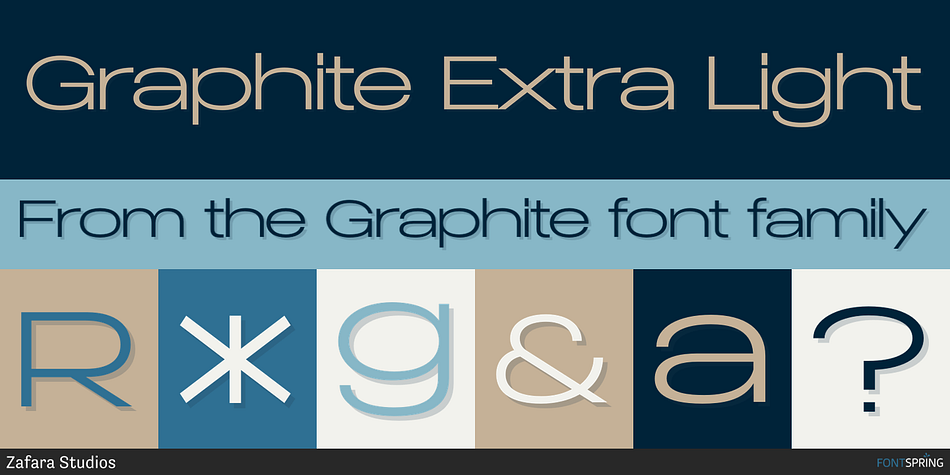
Graphite Extra Light
Graphite is a sans serif font family. This typeface has eighteen styles and was published by Zafara Studios.
Graphite is a wide sans serif font family designed with high contrast and visual clarity in mind. Arranged in a tight but balanced composition, it conveys a sense of intimacy and artistic expression.
This font can be used for headlines, titles, logotypes, magazines, and other types of text that need to be visible and easy to read.
- 218 glyphs: uppercase, lowercase, stylistic, multilingual, numbers, punctuation
- 9 weight: thin, extralight, light, regular, medium, semibold, bold, extrabold, heavy
- 9 italics